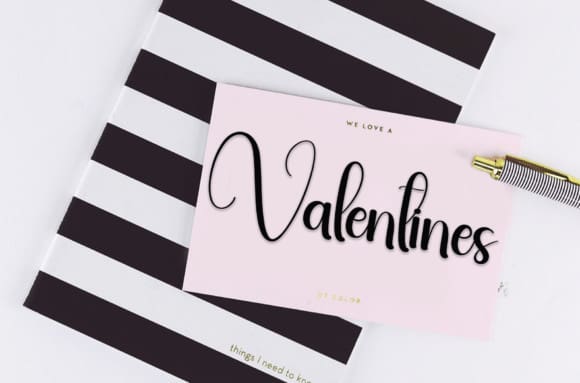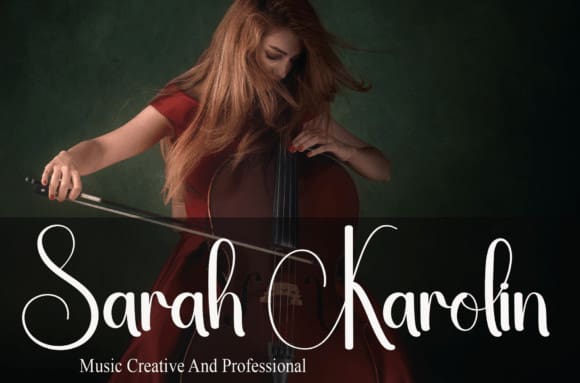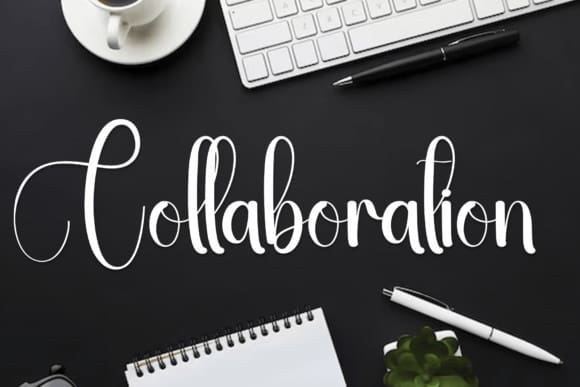
Collaboration Script Font
Collaboration Script Font is a sweet and friendly handwritten font. Fresh and neat, this font is ideal for writing wedding invitations, cards, or any other design that might need a fun touch!